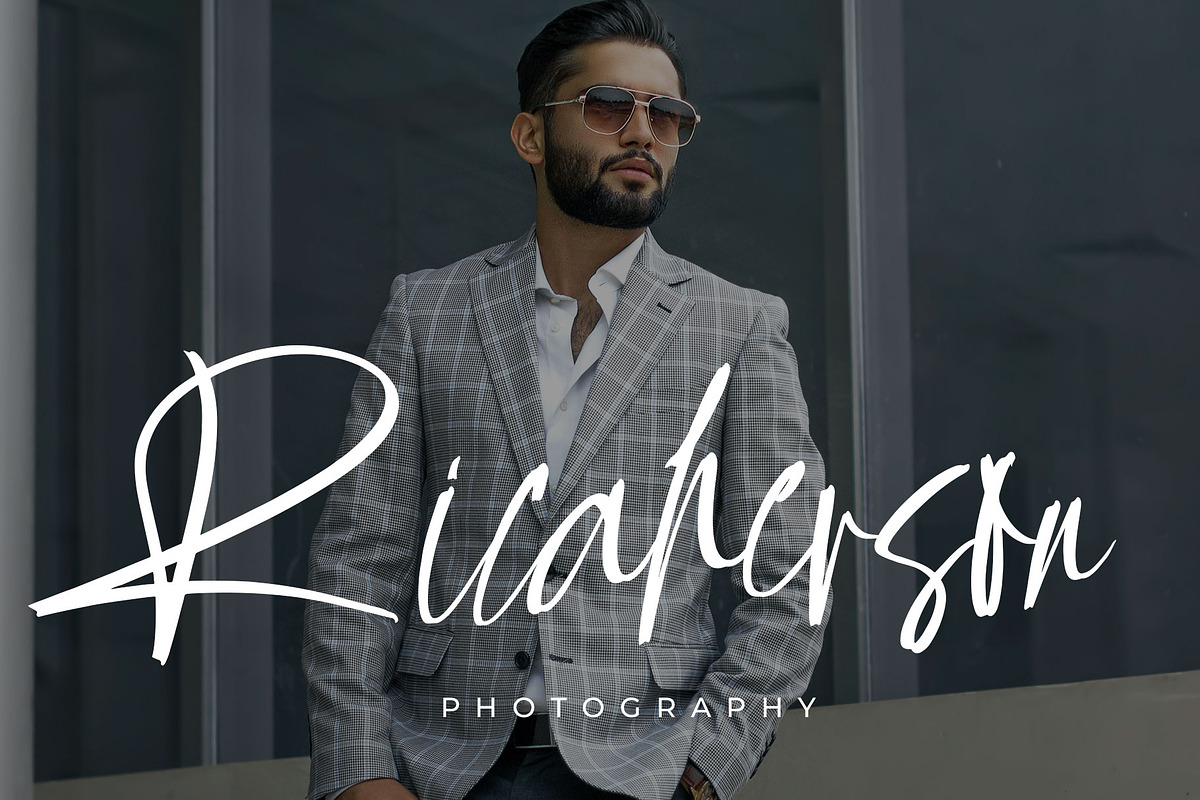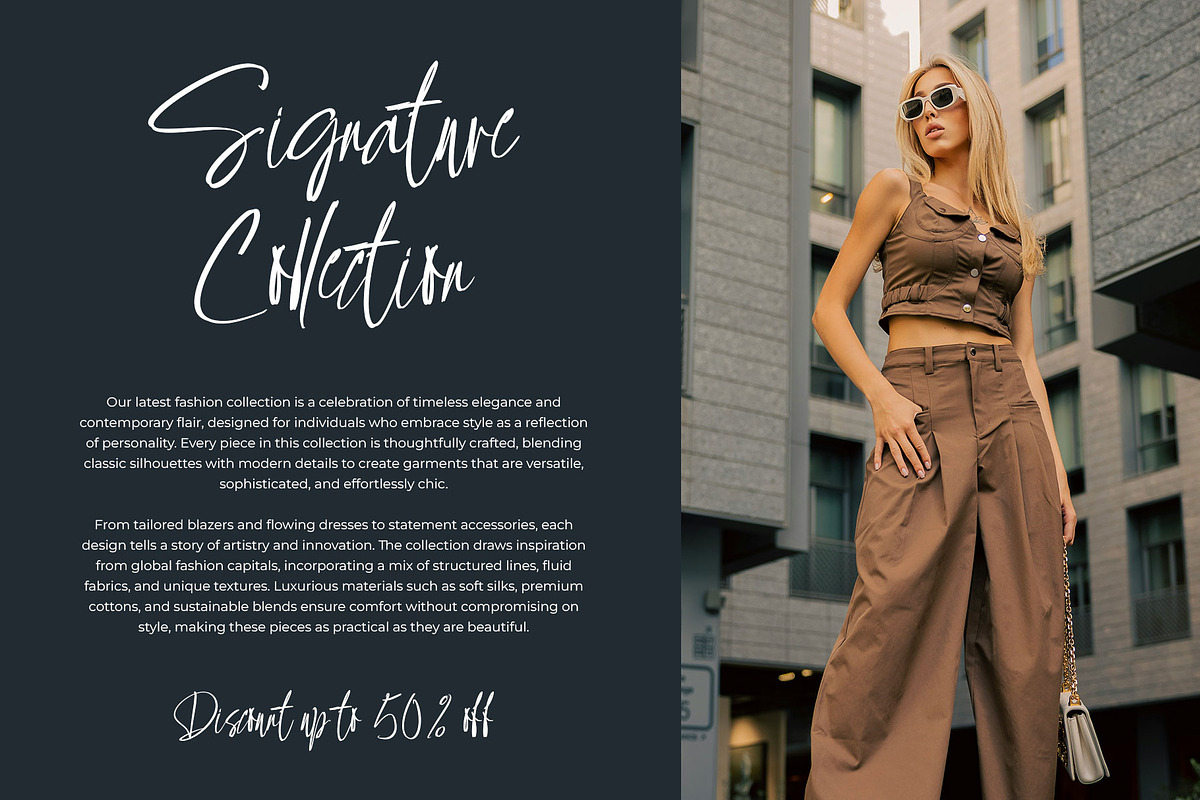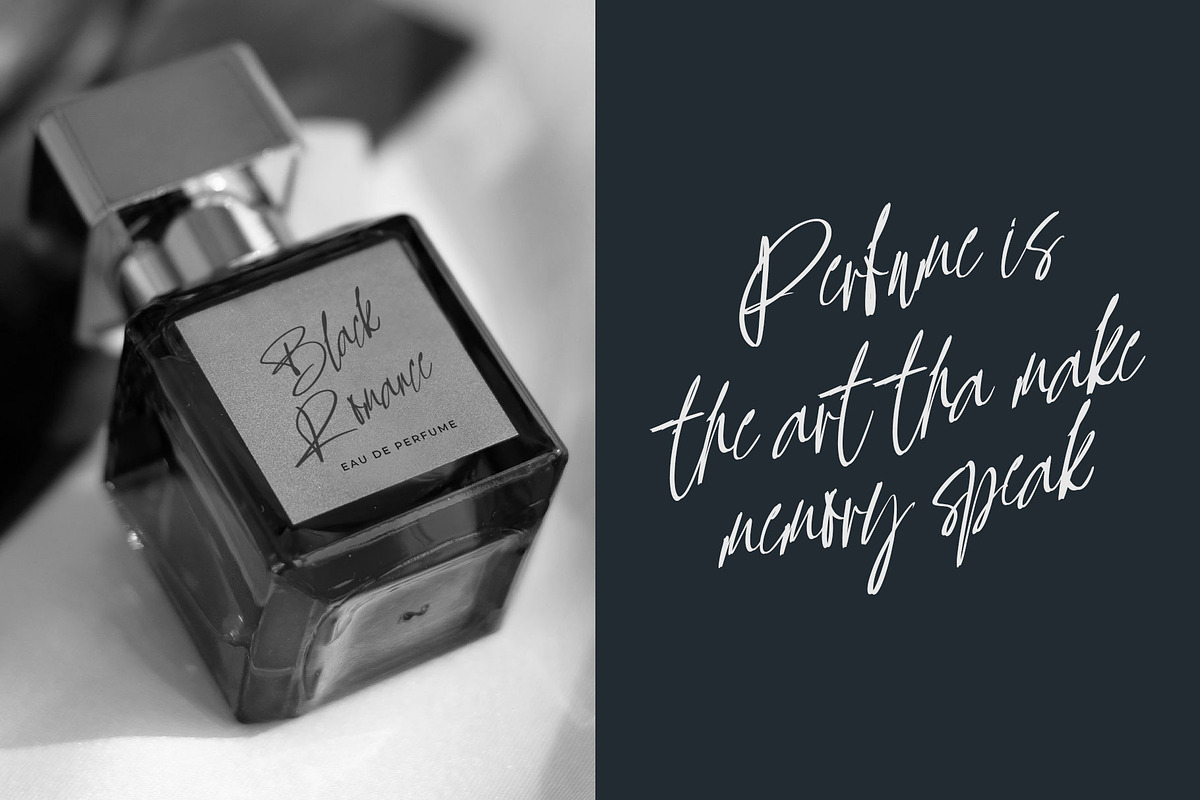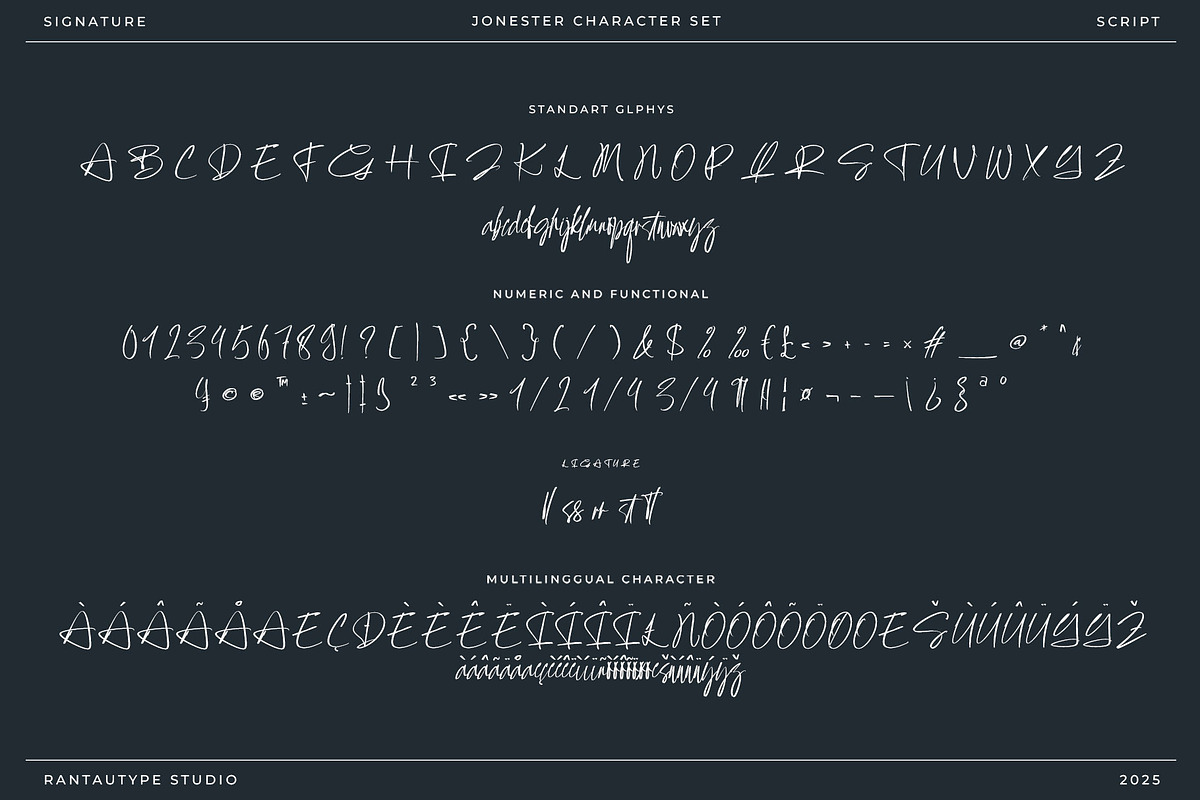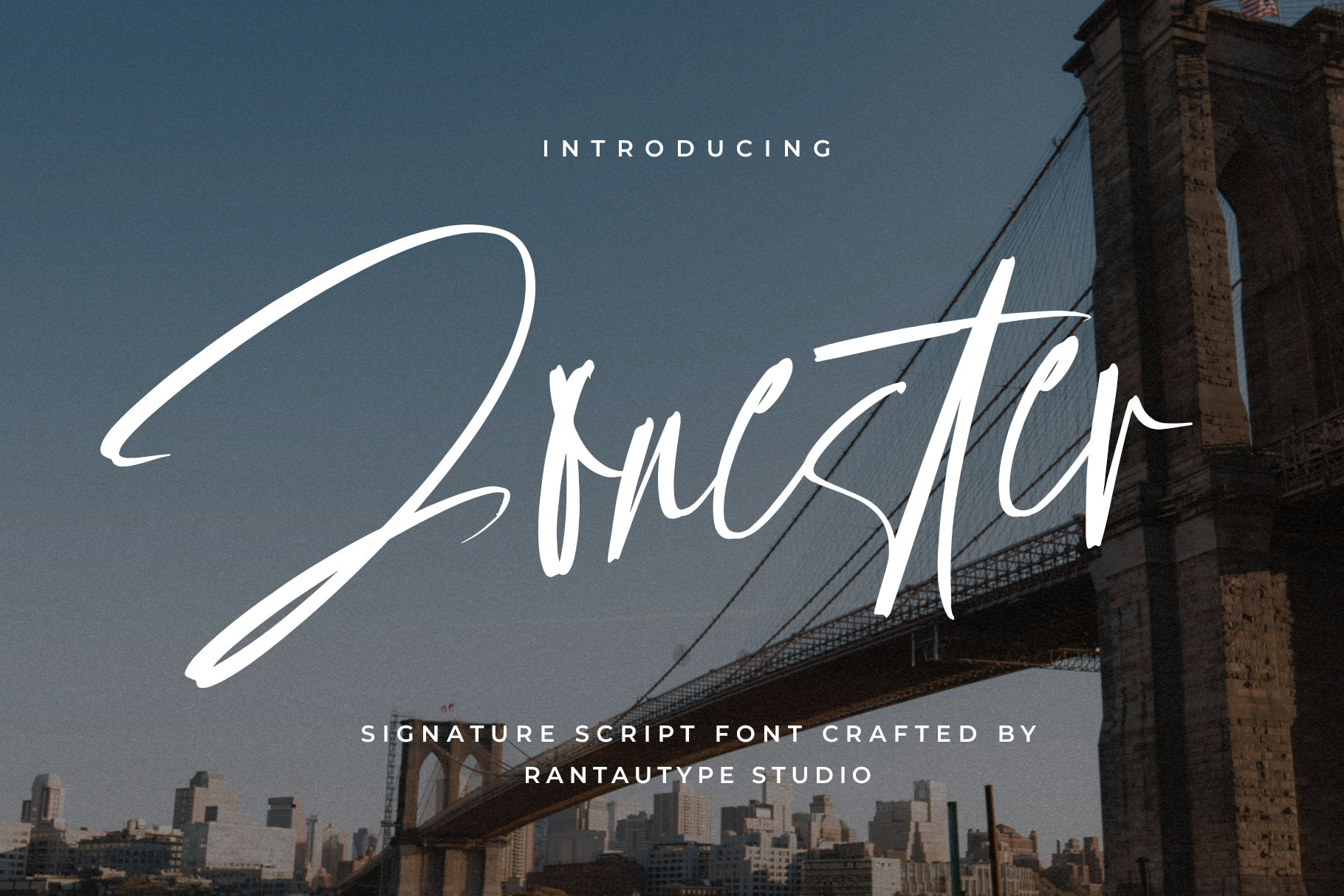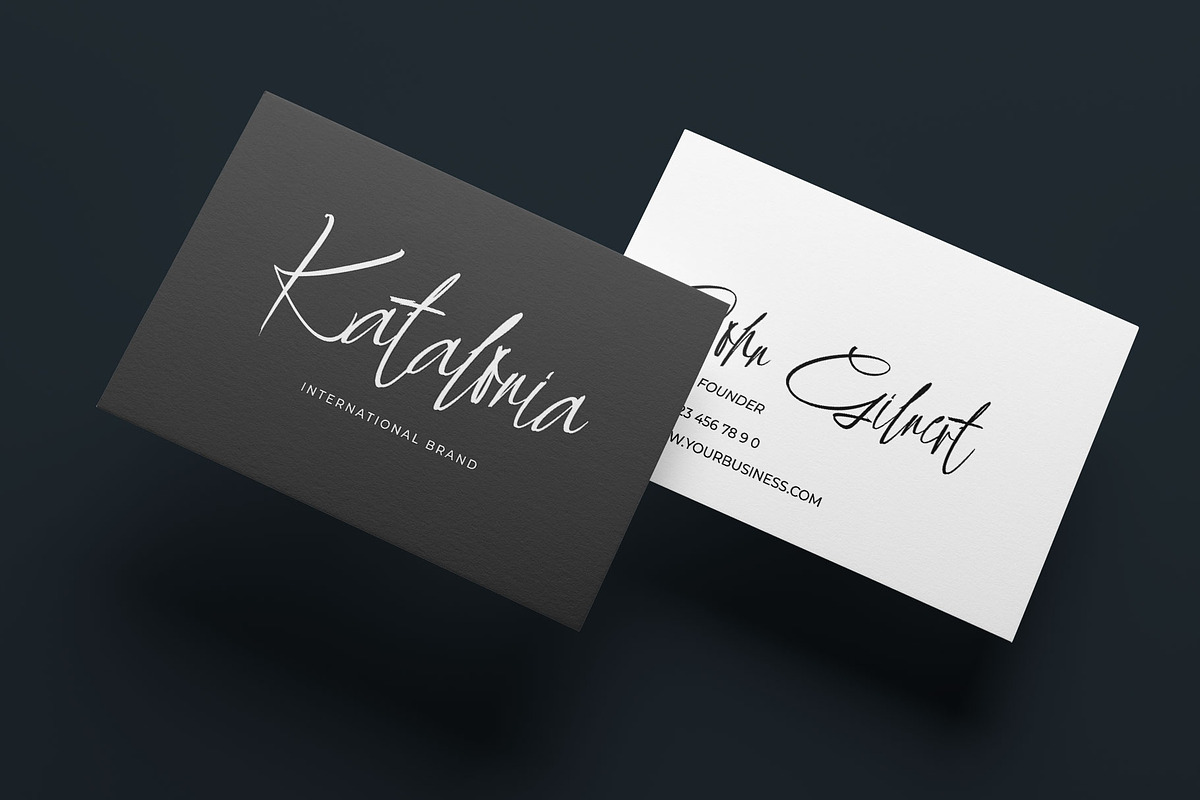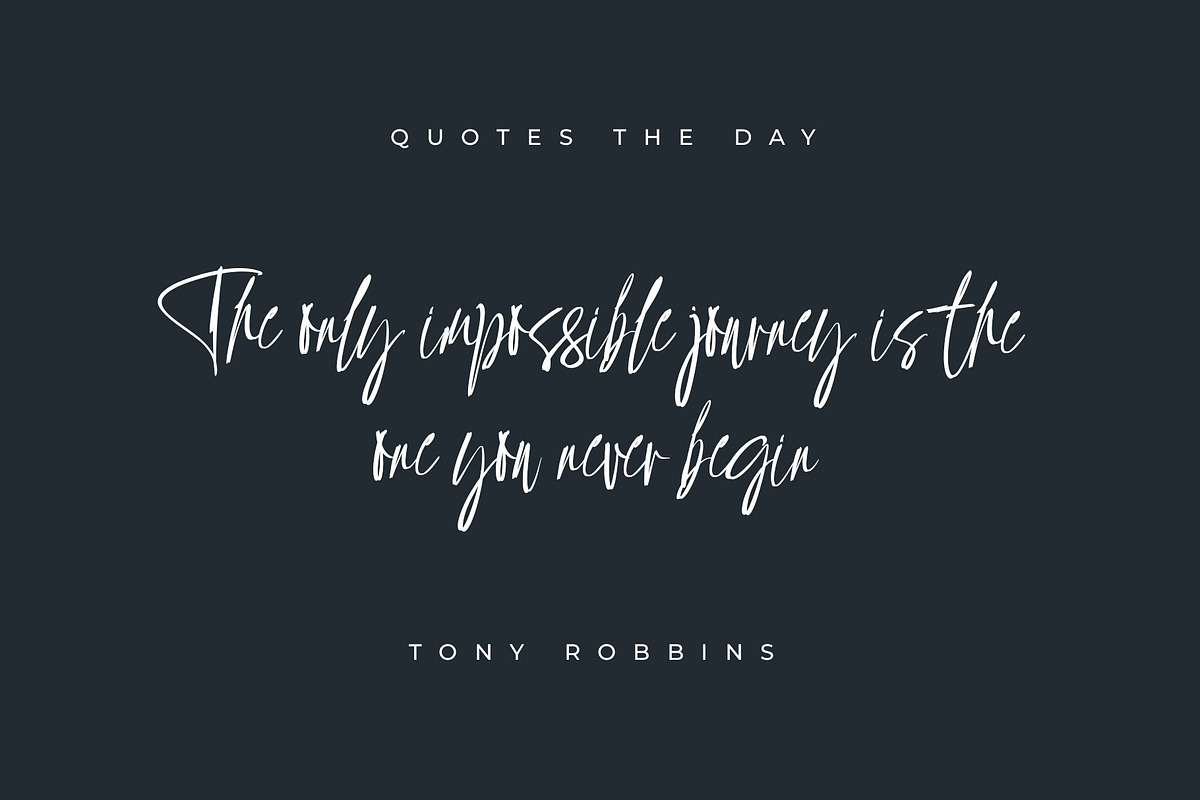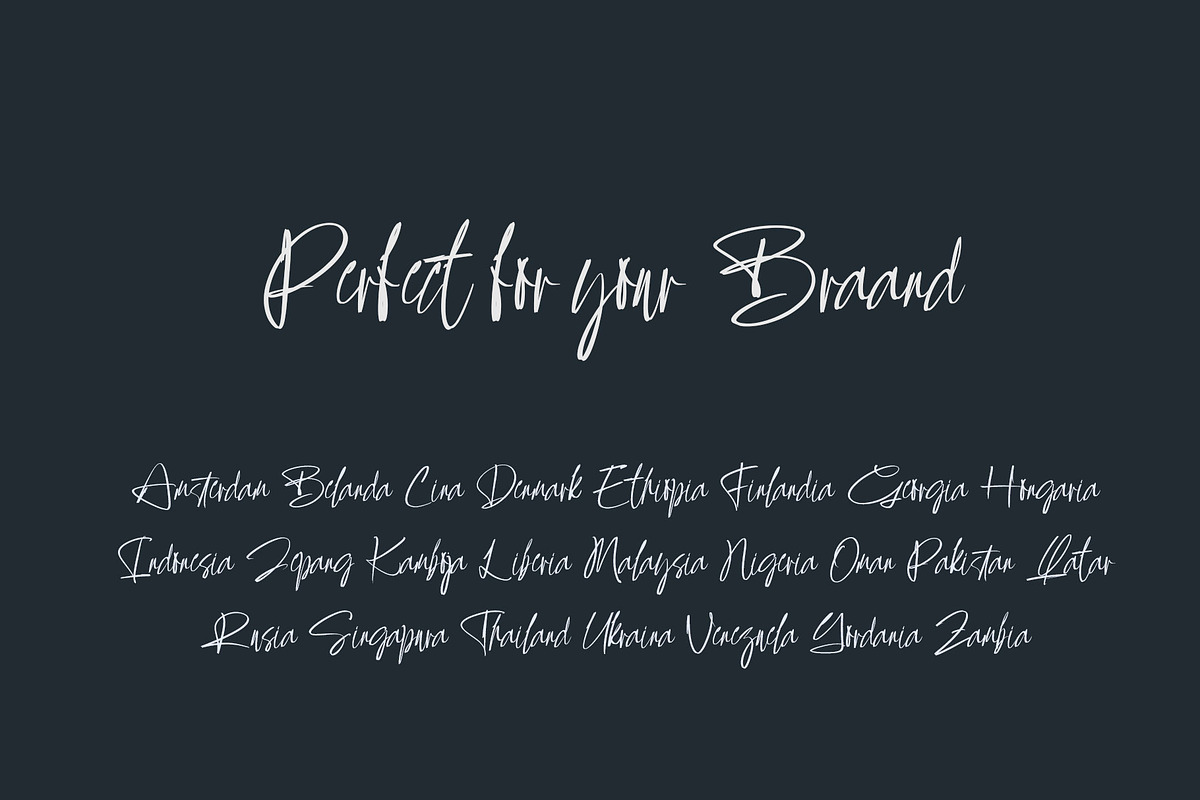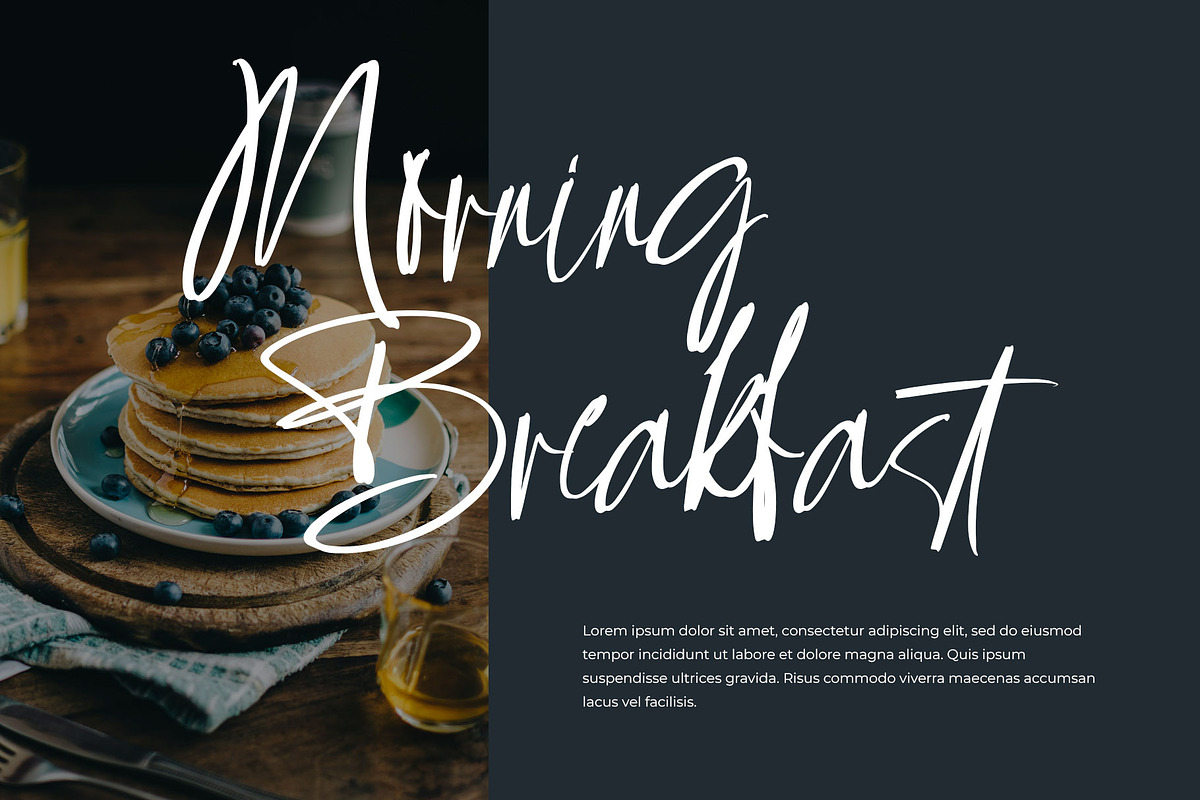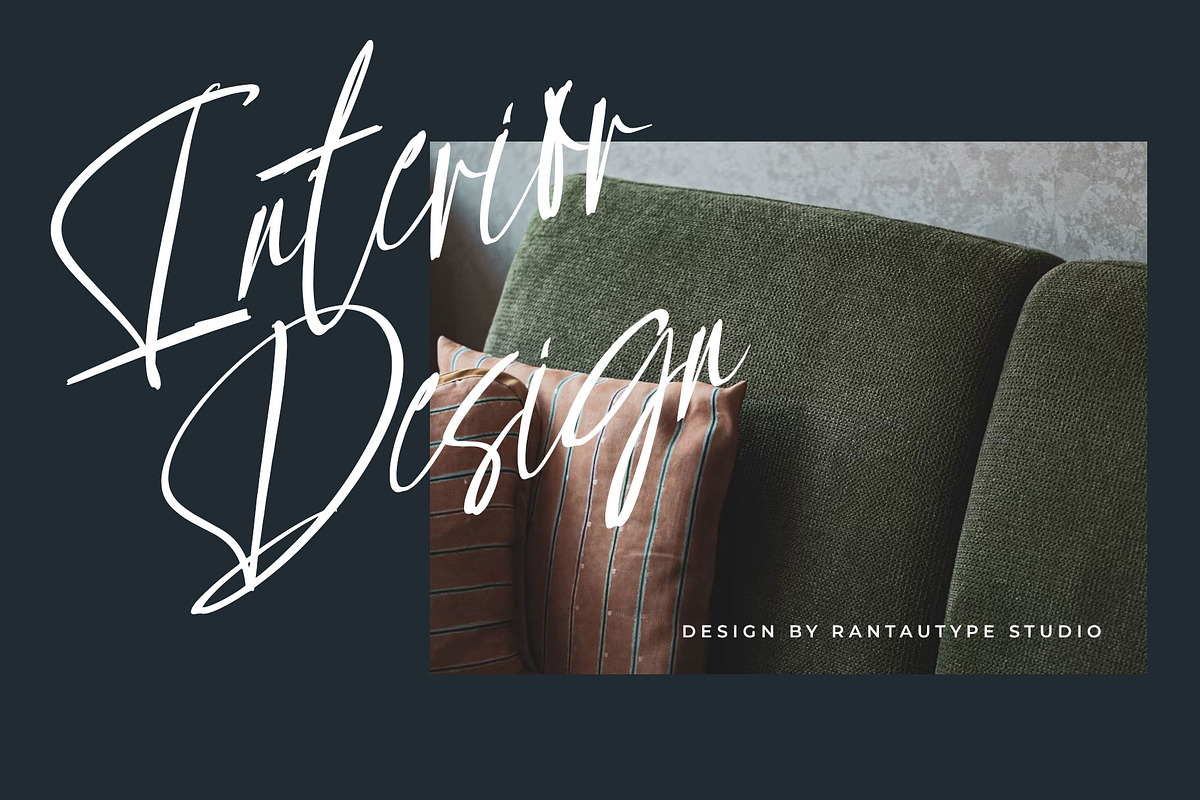
Jonester Signature Script Font
Jonester is signature font with authentic style made by rantautype studi. Jonester is a perfectly choice for any creative endeavor, creating, modern, lifestyle design such as logotype, title, cover, branding, invitations, wedding designs, display and magazine, social media posts, advertisements, printed quotes, product packaging, corporate brand, product designs, labels, photography, watermarks, special events and any other project with modern touch.
- Alternate and ligature
Fonts include Multilingual Character for: Afrikaans, Albanian, Asu, Basque, Bemba, Bena, Breton, Chiga, Cornish, Dutch, English, Estonian, Filipino, Finnish, Friulian, Galician, Gusii, Indonesian, Irish, Italian, Kabuverdianu, Kalenjin, Kinyarwanda, Luo, Luxembourgish, Luyia, Machame, North, Oromo, Portuguese, Quechua, Romansh, Rombo, Rundi, Rwa, Samburu, Sango, Sangu, Scottish, Gaelic, Sena, Shambala, Shona, Soga, Somali, Spanish, Swahili, Swedish, Swiss, German.